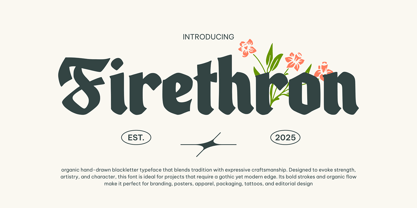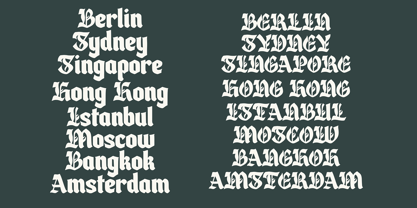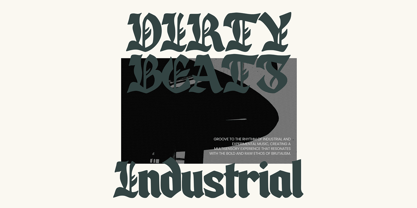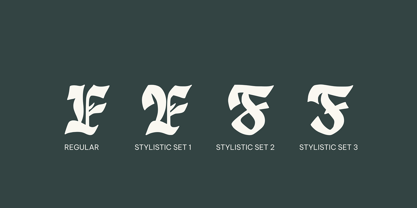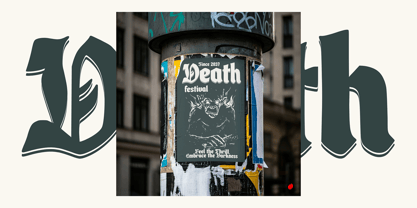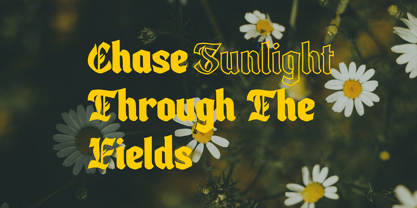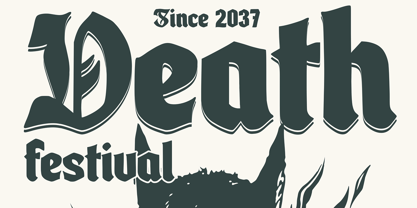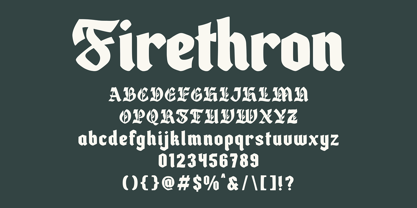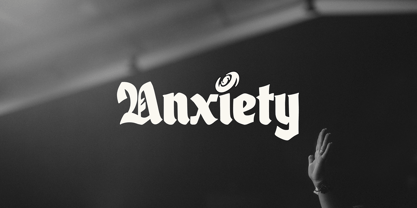
Firethorn
The Firethorn Font Family was designed by Asep Rendi and published by Arendxstudio. Firethorn contains 1 styles. More about this family
Firethron is an expressive blackletter typeface that blends timeless tradition with a modern artistic spirit. Crafted with organic strokes and a sense of strength, this typeface brings depth and character to any creative project. Its bold letterforms are perfect for headlines, branding, editorial layouts, posters, packaging, and digital artworks. With its gothic-inspired yet contemporary edge, Firethron provides a unique balance of power and elegance, making it a versatile choice for designers who want their work to stand out with both authority and artistry. Whether used for bold statements or intricate details, Firethron is built to leave a lasting impression.